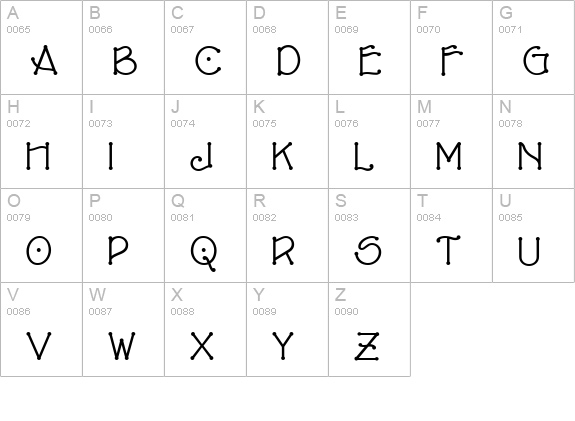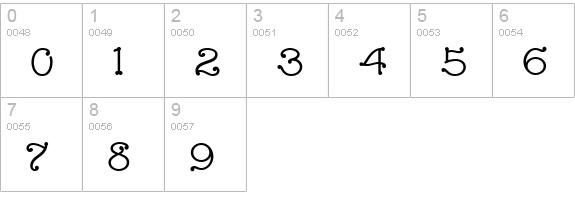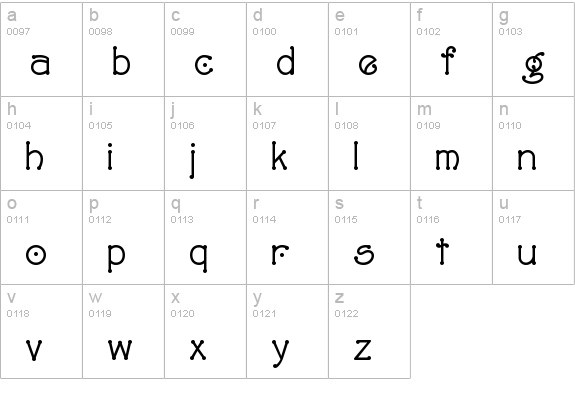
Almost Heaven NF Font Details
Almost Heaven NF is a whimsical and charming font that exudes a sense of nostalgia and warmth. With its handwritten style and unique flair, this font is perfect for adding a personal touch to any project. Whether you're creating invitations, greeting cards, or social media graphics, Almost Heaven NF will surely stand out and captivate your audience. The best part is that Almost Heaven NF is available for free download at FontsMarket.com. You can easily access this delightful font and start using it in your designs without any cost. Embrace the beauty and creativity of Almost Heaven NF and let your imagination soar with this wonderful typeface.